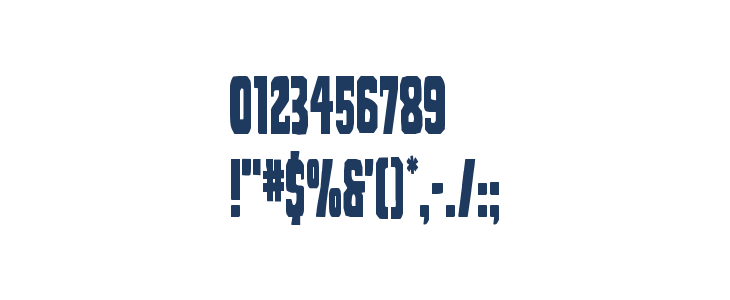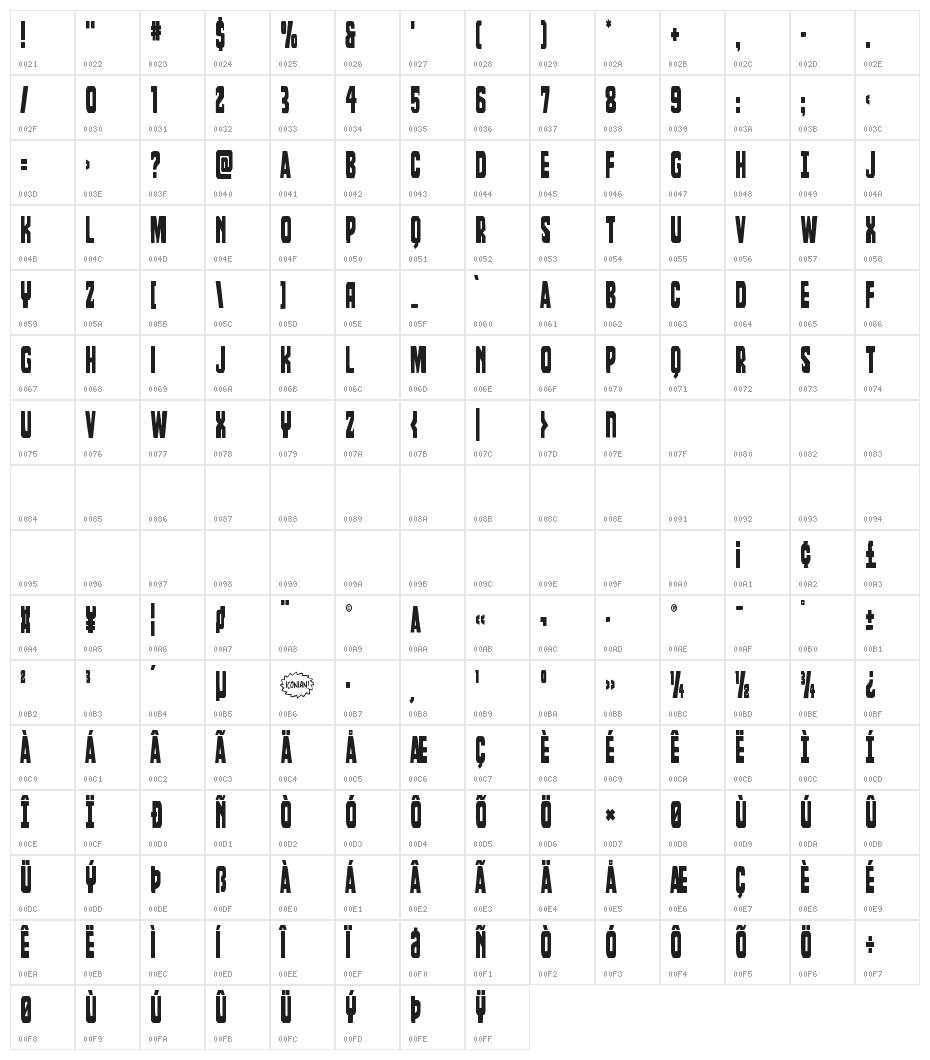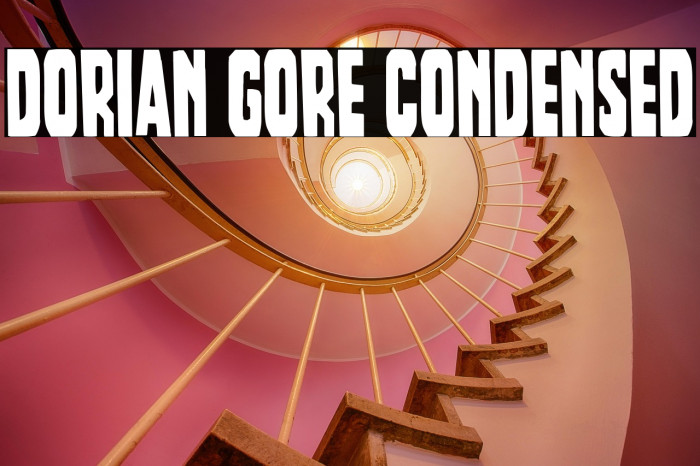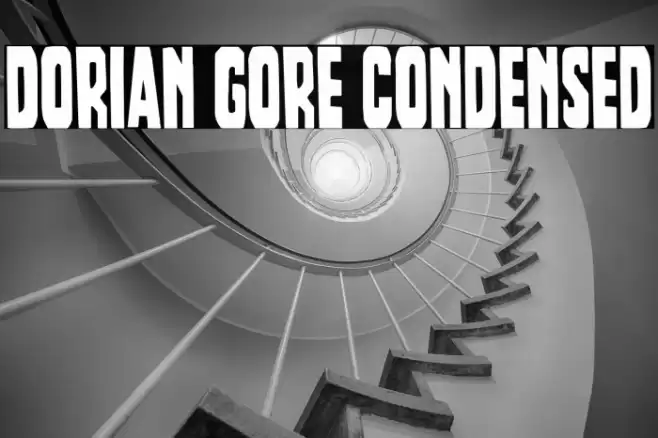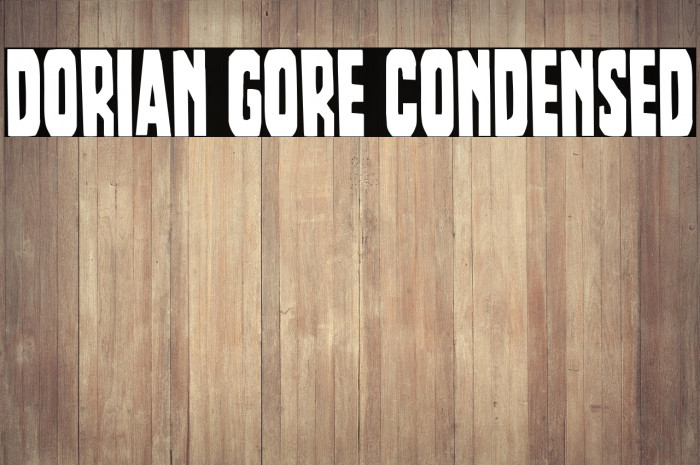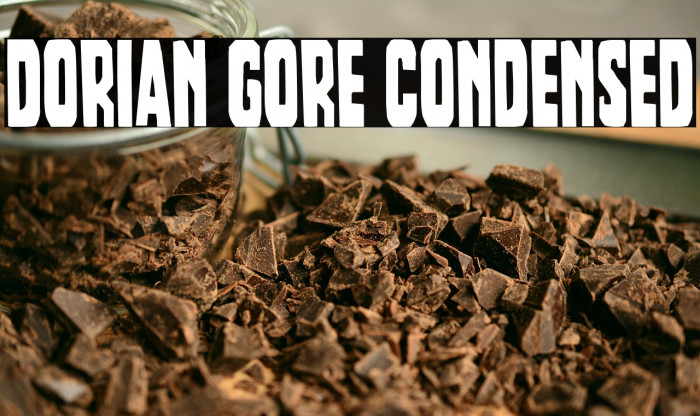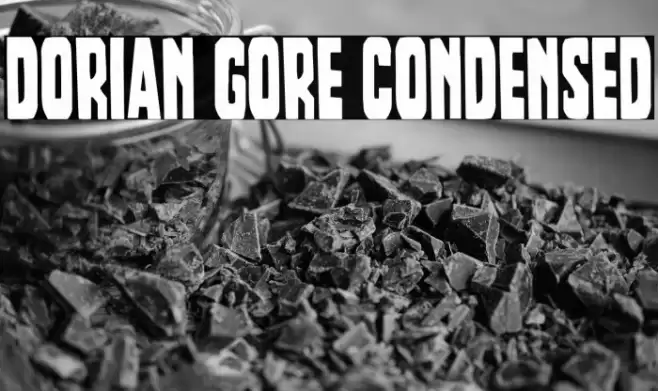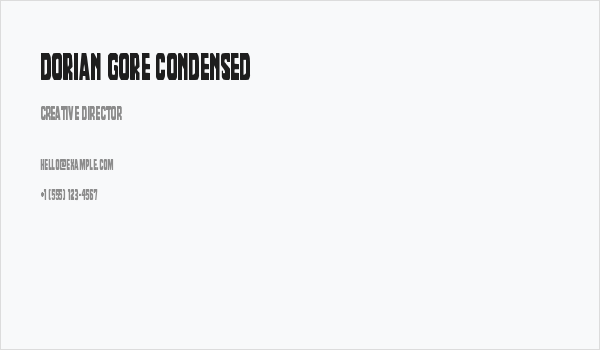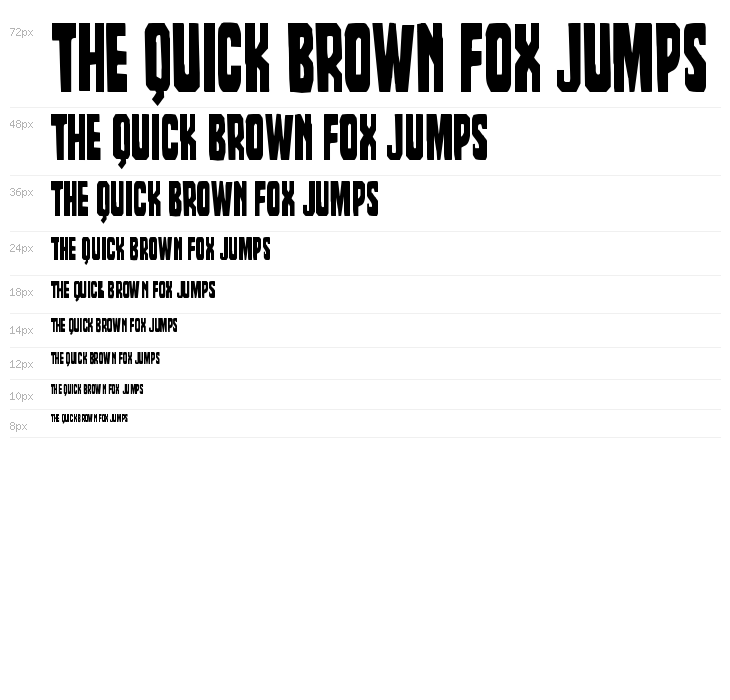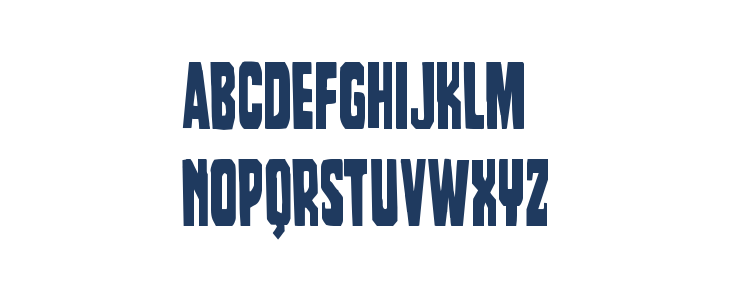
Dorian Gore Condensed Font
Dorian Gore Condensed Description
This font features a bold and condensed style, characterized by thick, blocky letters with minimal spacing between characters. The uppercase letters are prominent and assertive, making a strong visual impact. The numbers and special characters maintain the same boldness, ensuring consistency across all elements. The overall design is modern and eye-catching, suitable for creating attention-grabbing headlines or titles. The condensed nature of the font allows for efficient use of space, making it ideal for projects where space is limited but impact is essential.